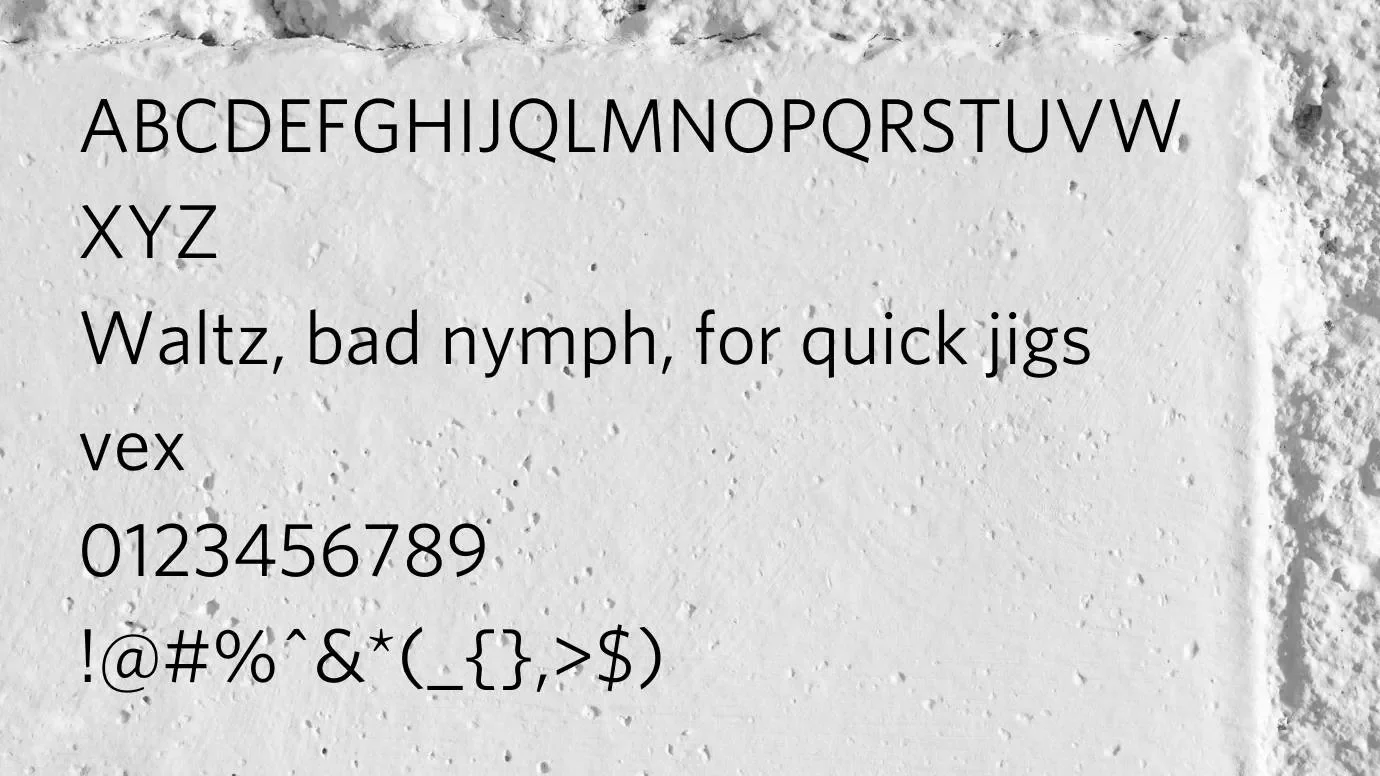
Whitney Book Font is a splendid typeface, belongs to the humanist sans serif font family that is known as Whitney Font. It was originally designed by Tobias Frere-Jones and released in 2004 through Hoefler & Frere Jones Typography. It is a very simple, clean, and modern typeface that can fulfill the requirements for every complicated or modern design. This font family comes in 2 weights that are regular and italic.
Every weight provides 224 interesting and soft characters including uppercase, lowercase, numbers, general punctuations, symbols, updated icons, and plenty of special characters that would a complete font package for your precious designs and texts. It supports many different international languages such as Latin, Cyrillic, French, etc same as the Didact Gothic font.
Reason to Use Whitney Book Font
You have plenty of options for utilizing this staggering typeface in your projects. It has been also featured in many notable places and got tremendous popularity after its release. You can use this font for creating huge headlines and titles as well as paragraphs, resumes, letterheads, descriptions, quotes, and many more. Students can also apply this font for creating unique assignments and notes.
Whitney Book Font View
Who created Whitney Book Font?
This superlative font is belonging to the largest sans serif typeface family named Whitney font, produced by Tobias Frere-Jones and shared in 2013 through Hoefler & Frere Jones Typography.
What font is Whitney Book Font?
This amazing typeface is a family member of the humanist sans serif typeface that is known as Whitney font, designed and shared by Tobias Frere-Jones. It has 2 weights including regular and italic.